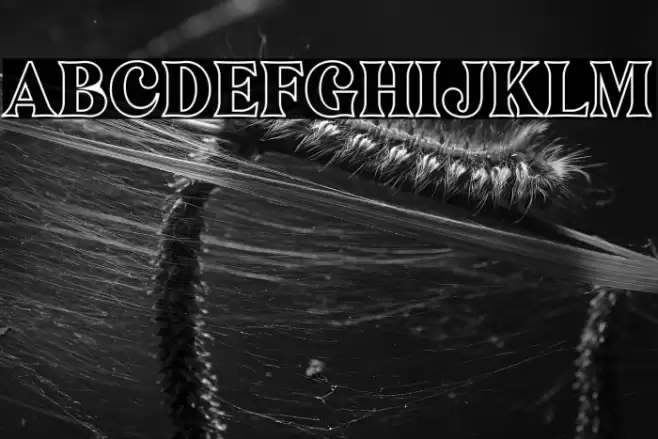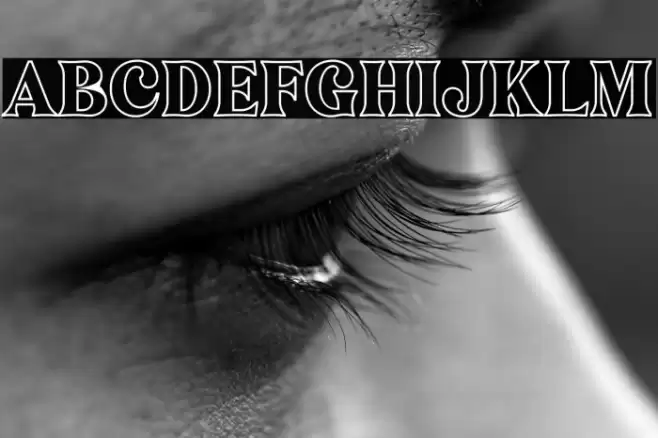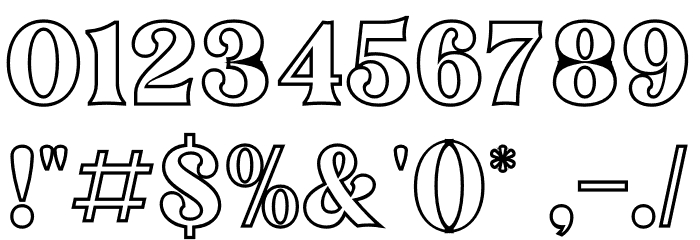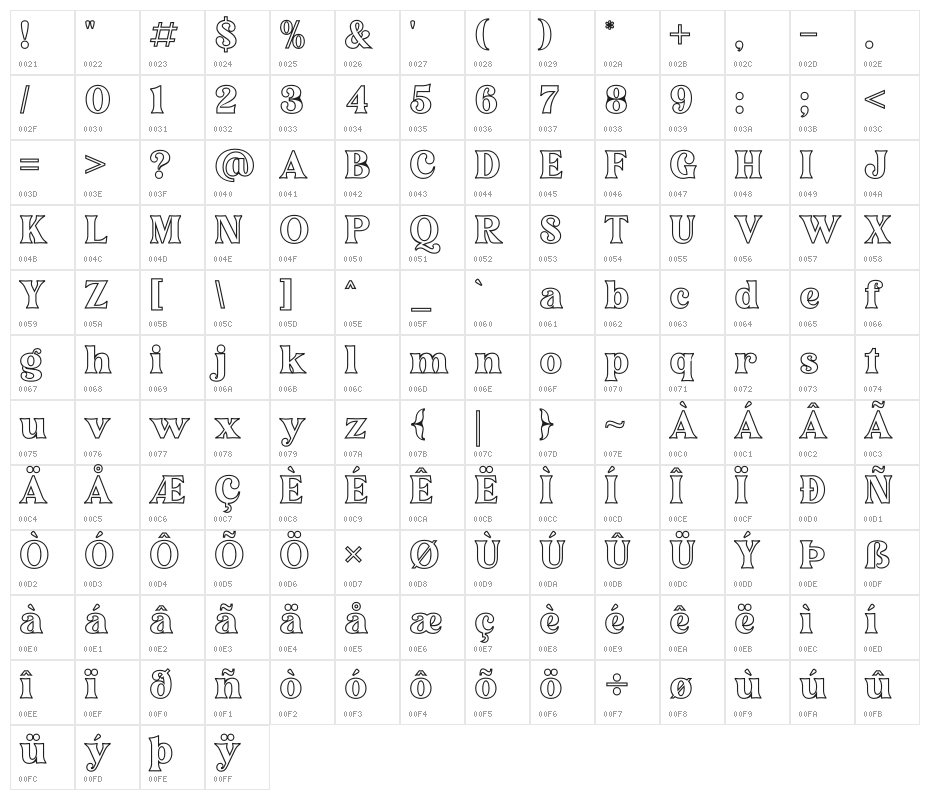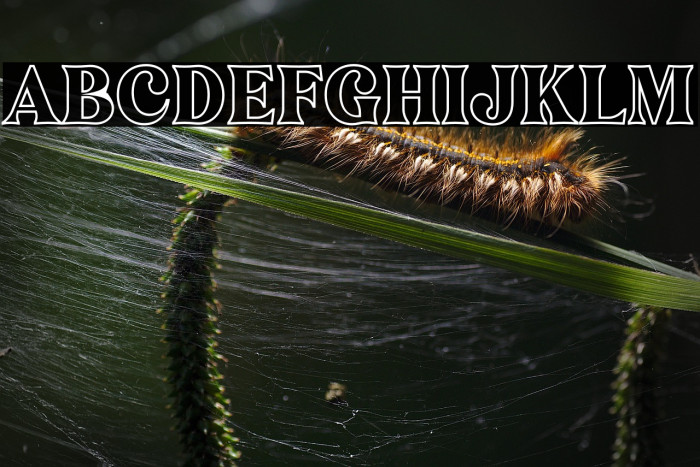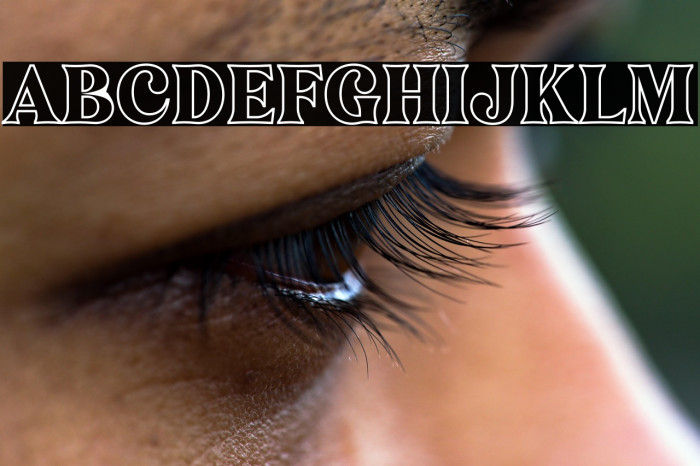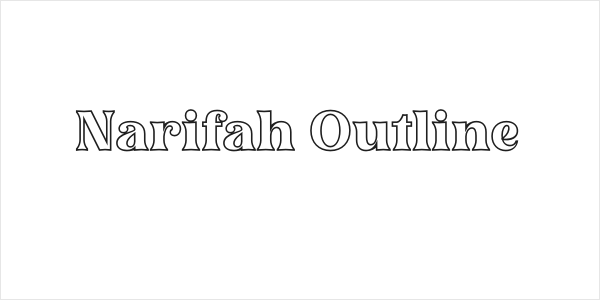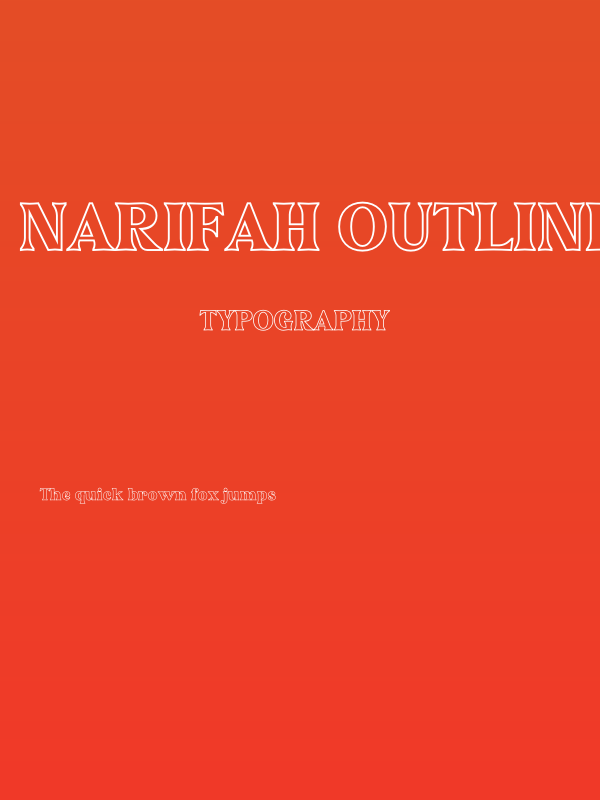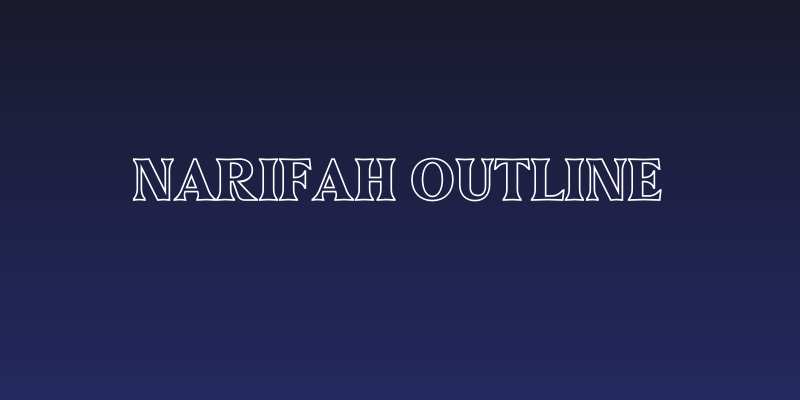
Narifah Outline Font
Narifah Outline Description
This font features a bold, outlined style with a classic serif structure. The uppercase and lowercase letters maintain a consistent width, giving it a balanced appearance. The serifs are prominent and add a touch of elegance, while the outline effect provides a modern twist. The numerals are equally bold and outlined, matching the style of the alphabet. Special characters are included, maintaining the same outlined and serifed design. This font is versatile, suitable for both traditional and contemporary projects, offering a unique blend of classic and modern aesthetics.
A bold, outlined serif font with a classic yet modern appeal from Uncategorized fonts.
- Proposed Projects: Ideal for branding, headlines, posters, and any design requiring a bold statement.